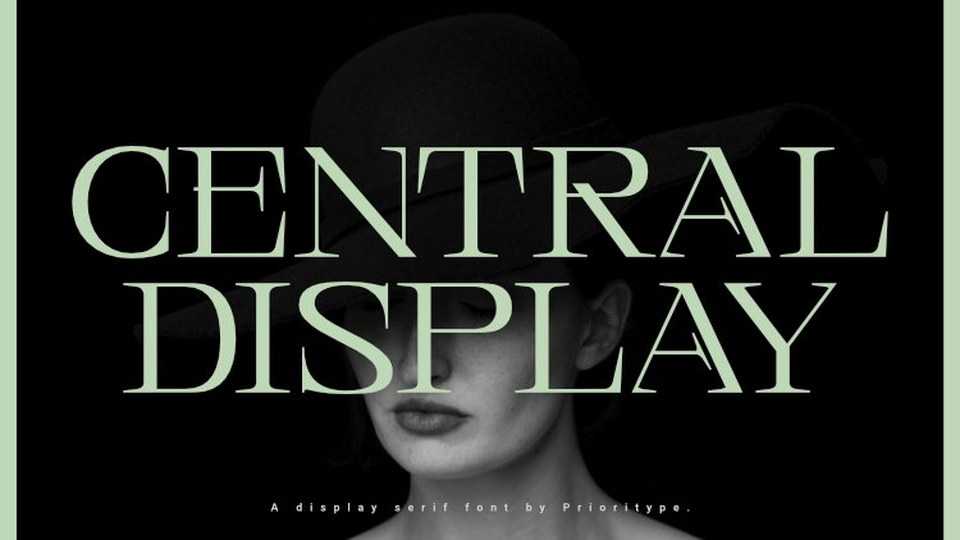
Download Central Display font, a serif typeface inspired by fashion magazines. With its strong and classy character, Central Display font is very suitable for poster design, branding, social media posts, magazine covers and so on.
Designer: Prioritype Co